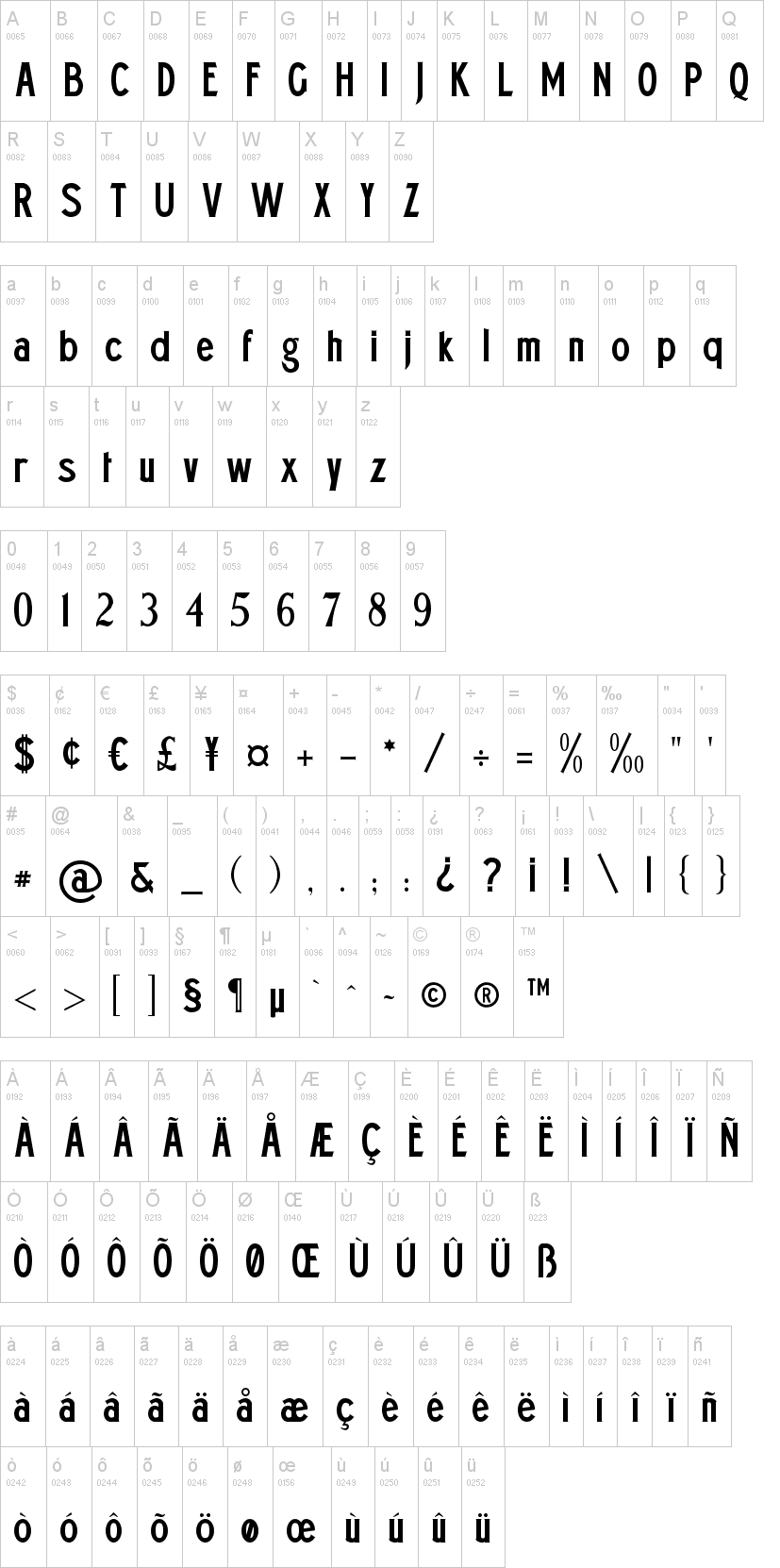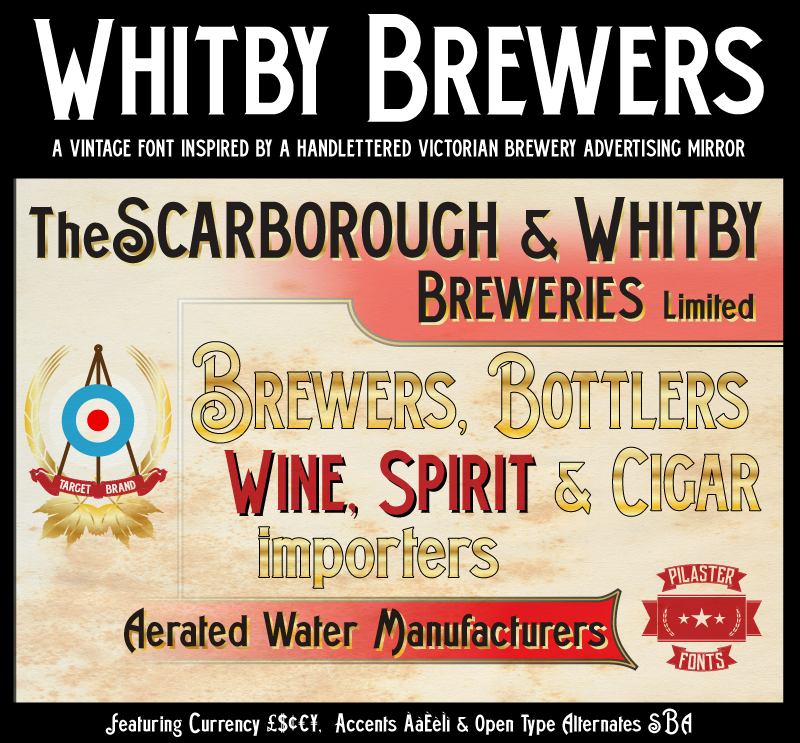
Note of the authorWhitby Brewers is inspired by the hand lettering on a reverse glass painted Victorian advertising mirror, found and recorded in the wonderful Beck Isle Museum, Pickering, North Yorkshire, in the UK. The museum also houses a working letterpress print room, which is a treat.
Alternates for some capitals are available in Open Type enabled Apps or through the Glyphs Palette or Character Map. (Refer to your app/OS manual as to how to insert special characters/glyphs)